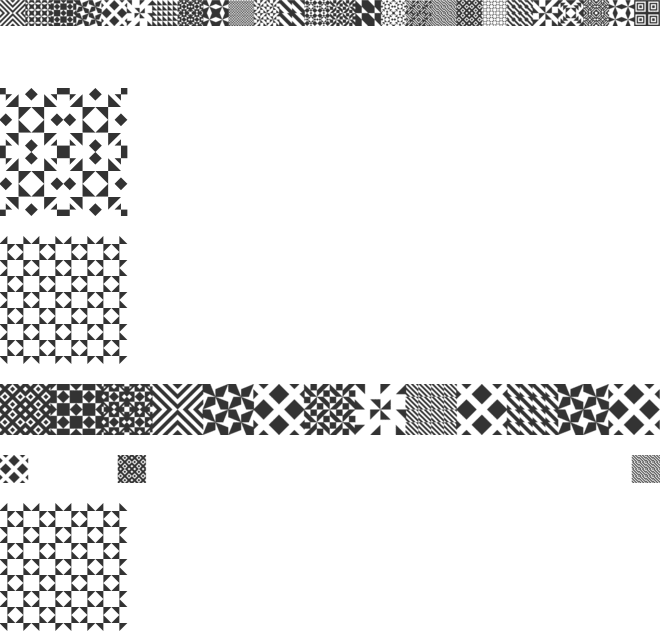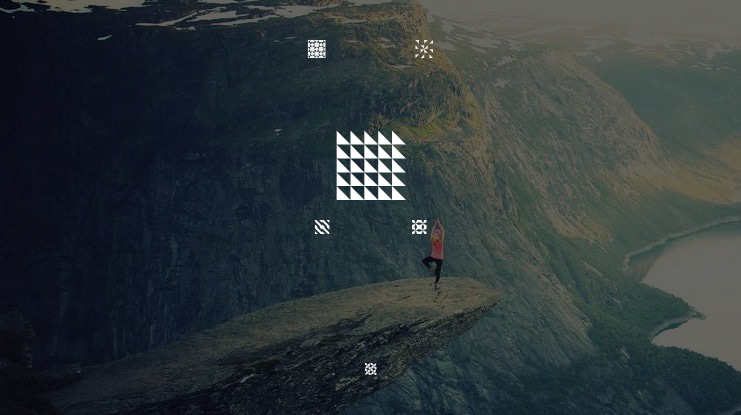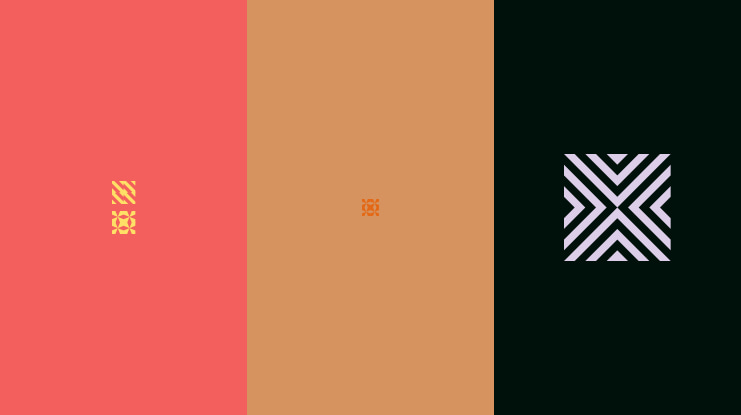
Gmetric Font
Patterns Creator is a geometric dingbats font featuring bold black-and-white motifs—ideal for textile design, branding accents, and modern layout grids.
Gmetric font preview
Gmetric font